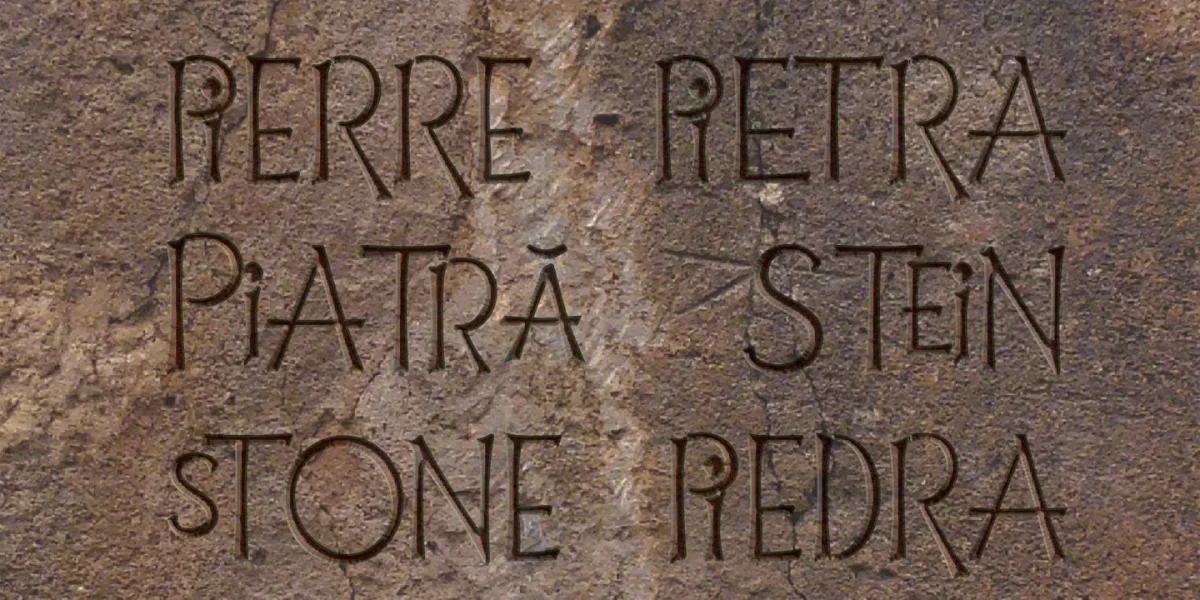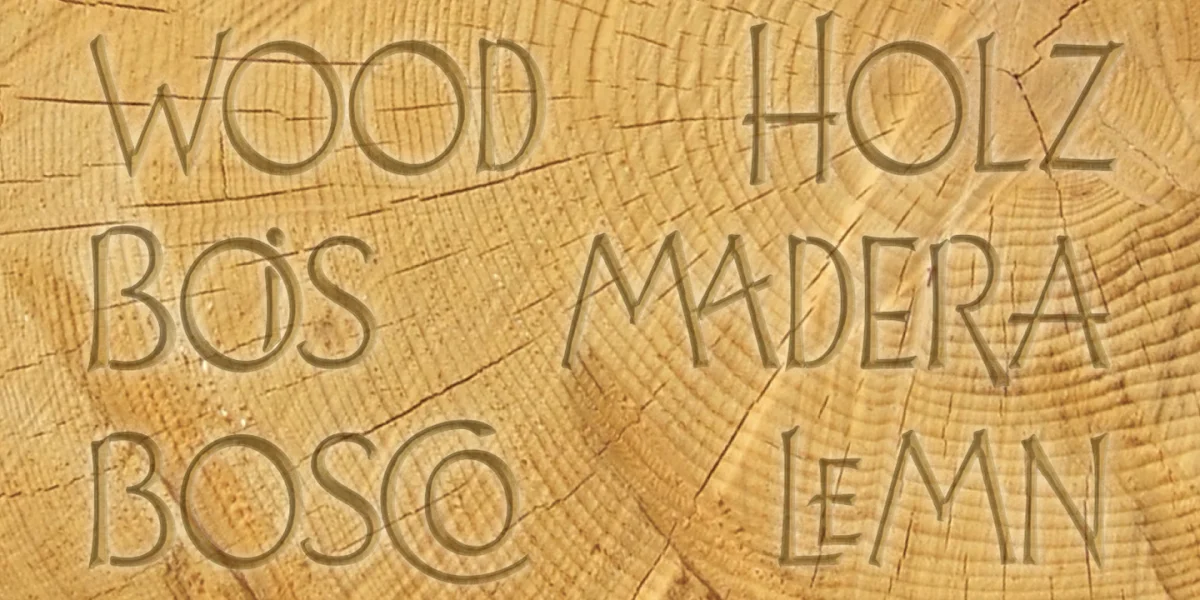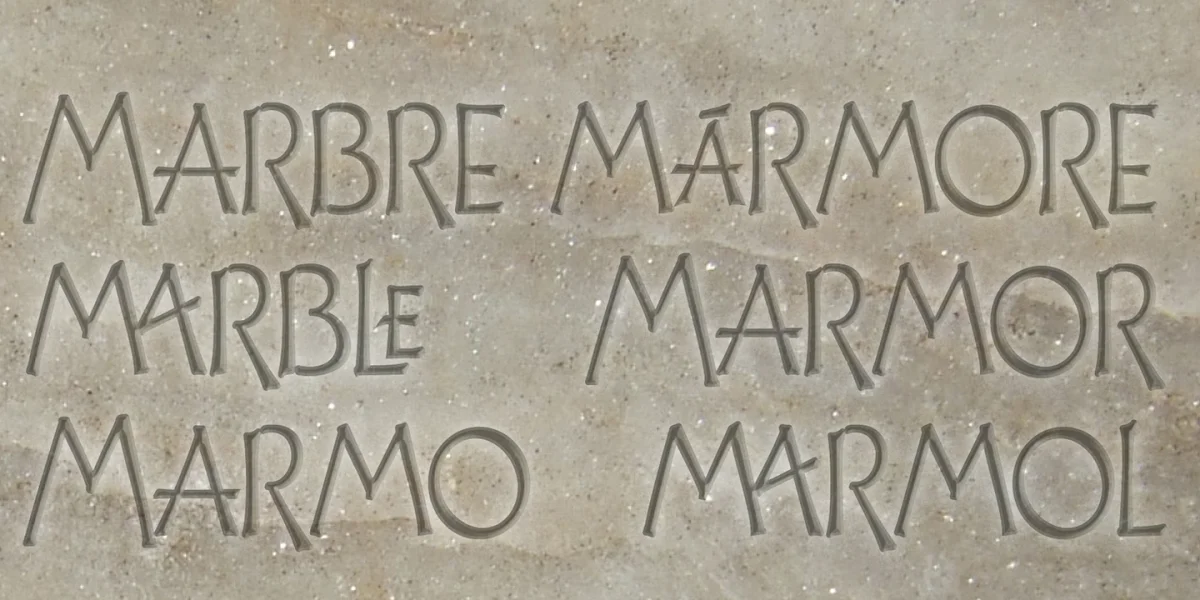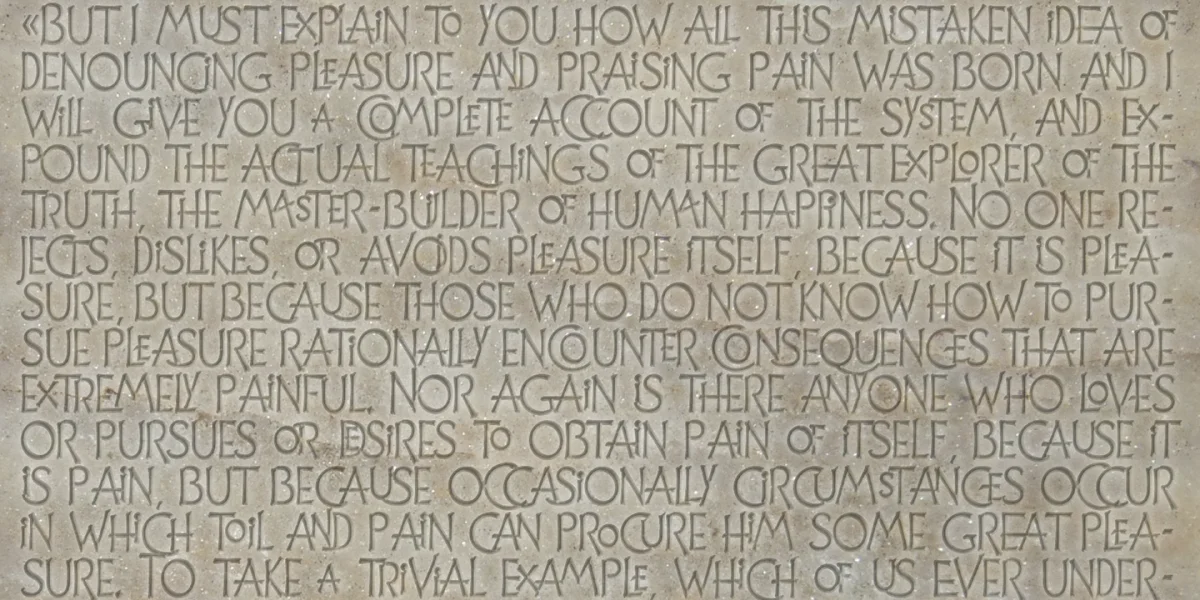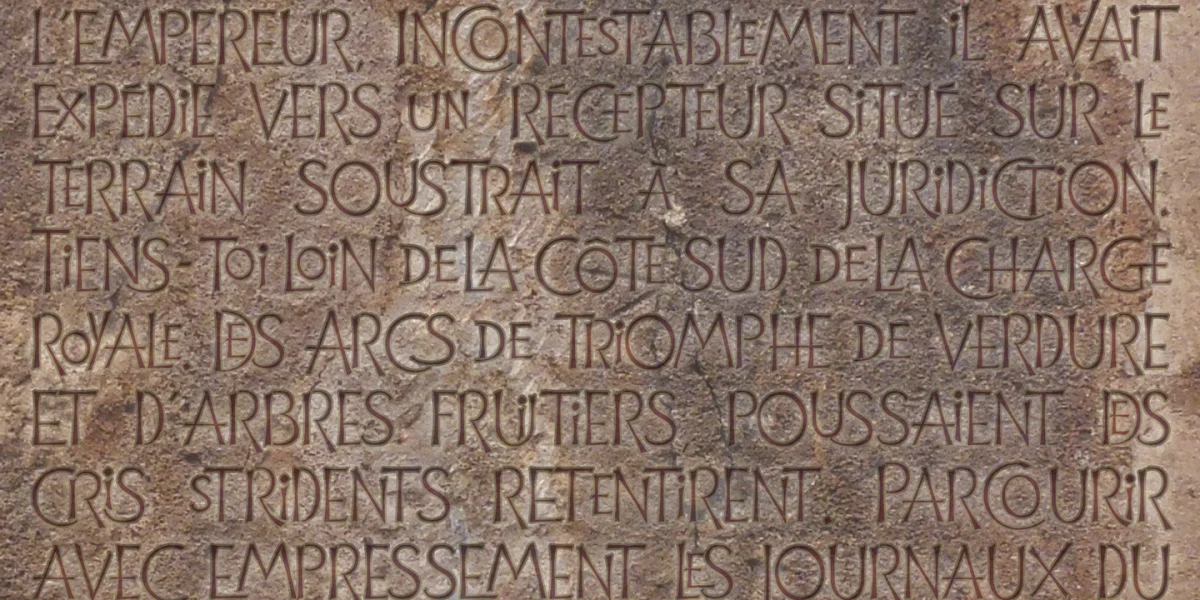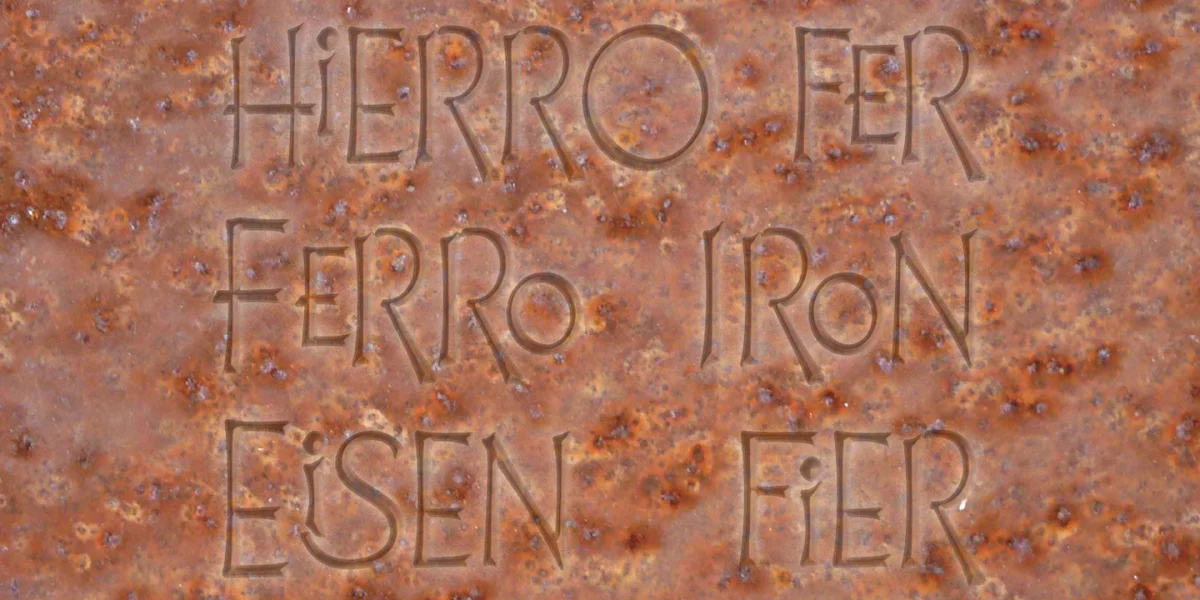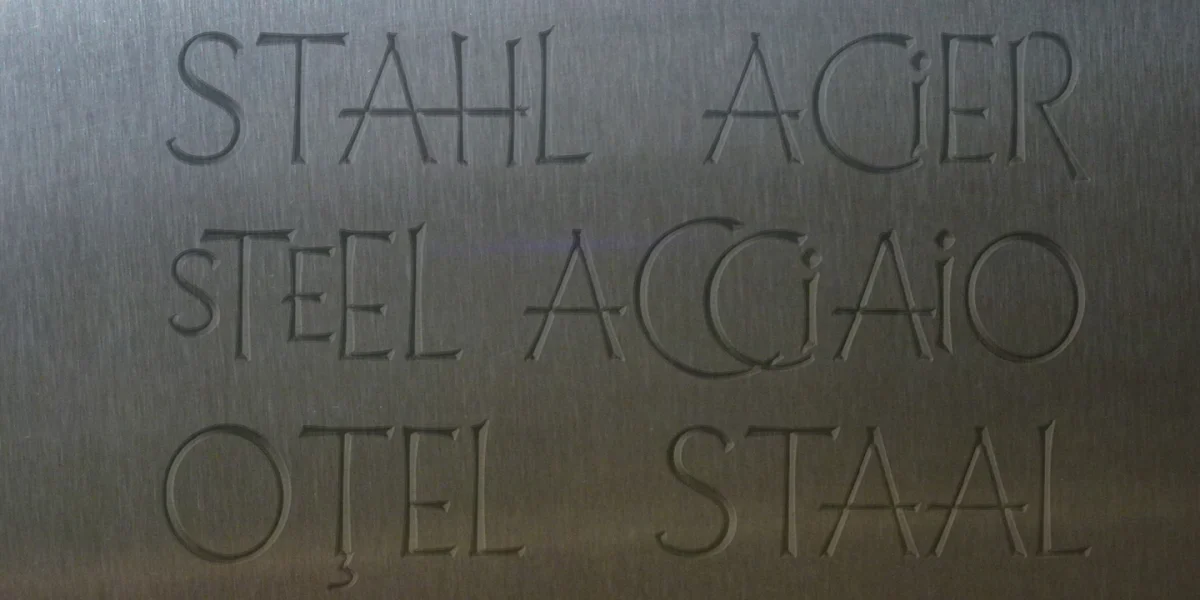
Cuivrerie is a free interpretation of relatively common lapidary inscriptions in Burgundy.
Letters fit together. Thus the engraver gains room and we lose legibility. No matter, we have forever to read! This font is for personal use only. To purchase the full font, visit: